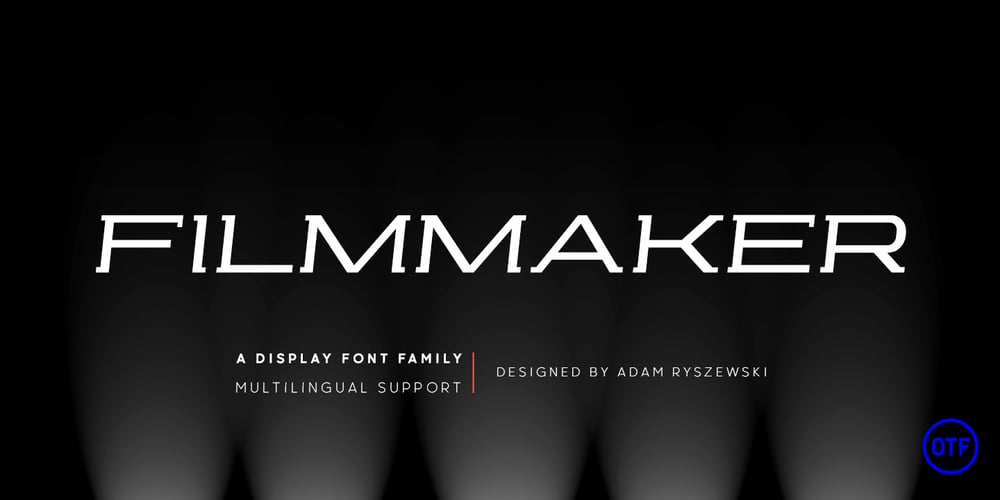
Filmmaker
Filmmaker font
Filmmaker Font Family was designed by Adam Ryszewski and published by Vertigo. Filmmaker contains 4 styles and family package options. The Filmmaker is a wide, slab serif, display font with four varieties. It works well for modern, dynamic projects, logotypes, films, posters, billboards, press advertisements, websites, packaging. It provides multilingual support.